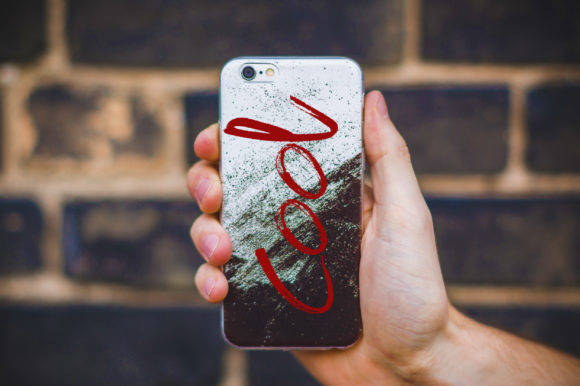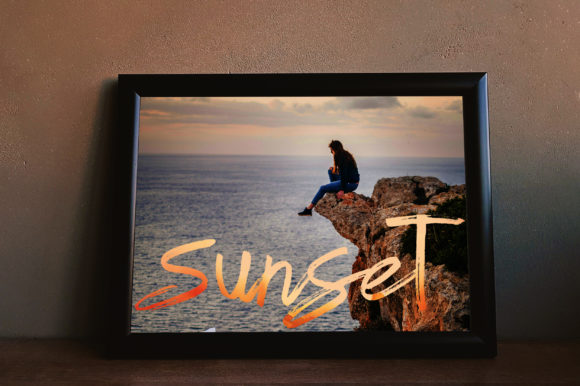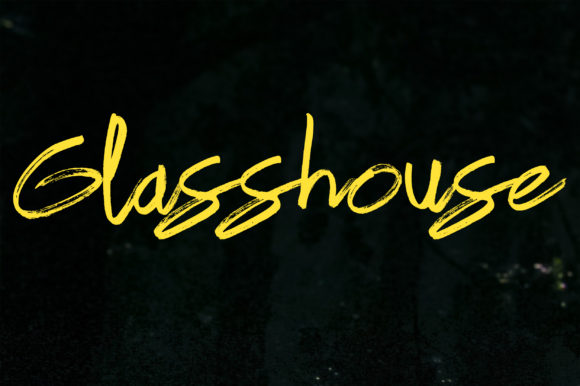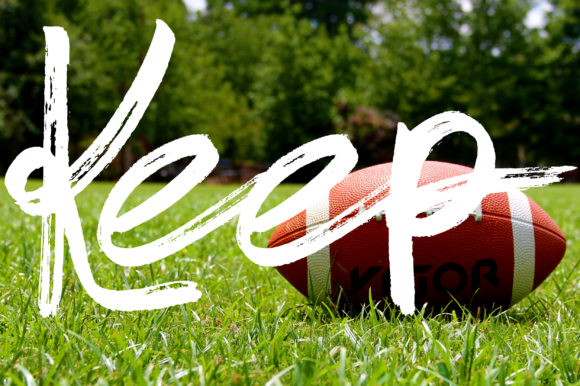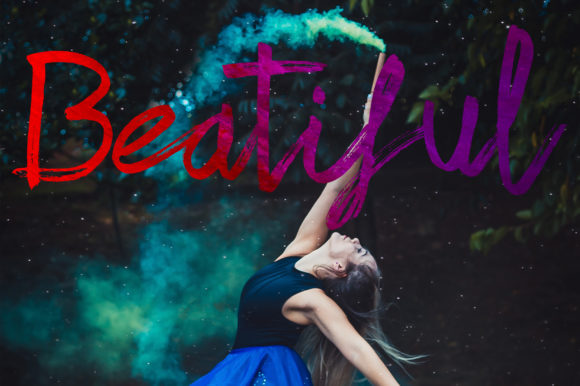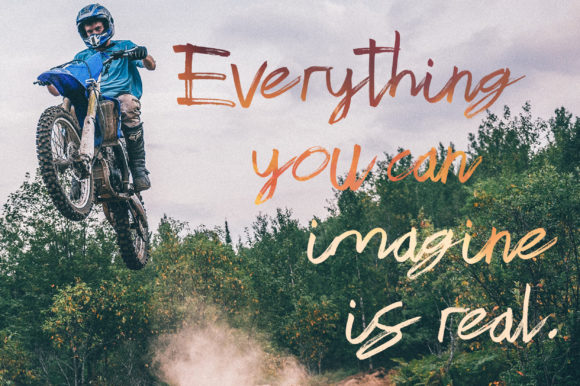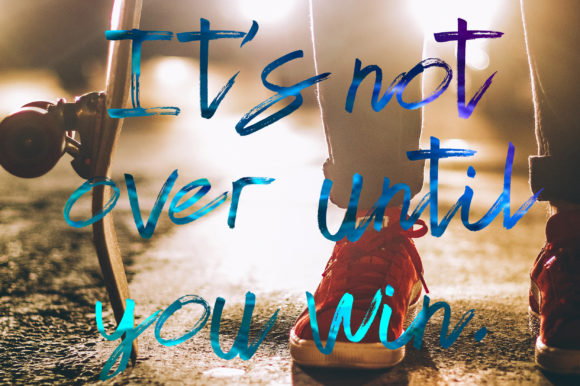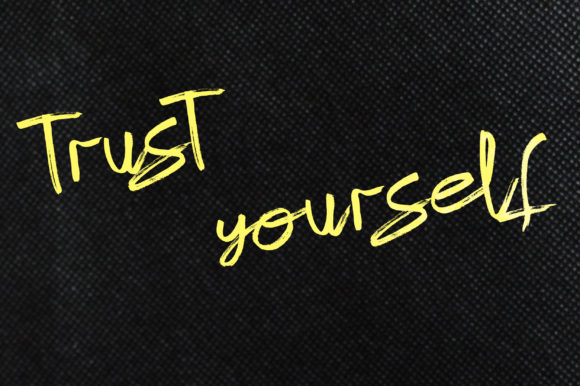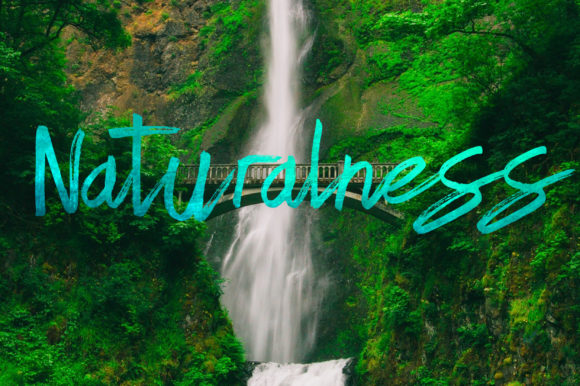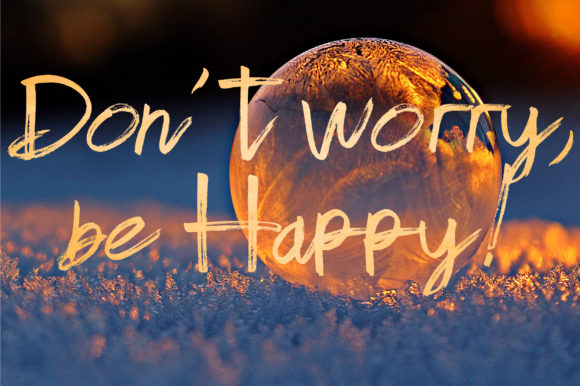
Style Font
About Style Font
Style is a confident and stylish script font with an incredibly contemporary look. It will turn any design project into a standout!